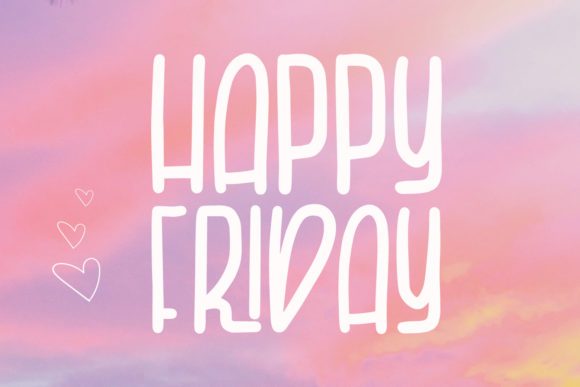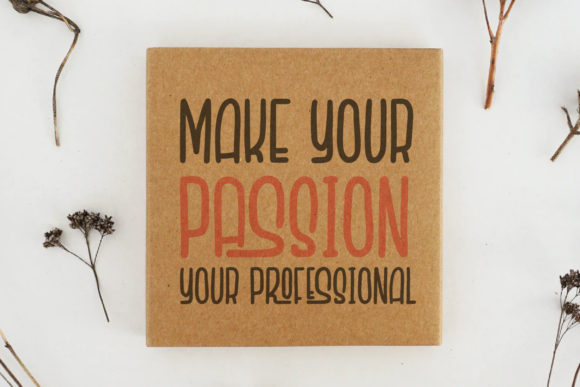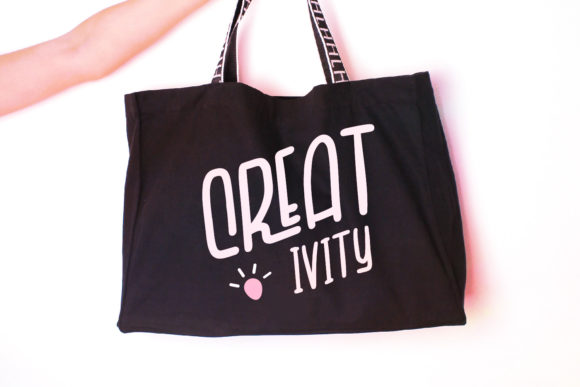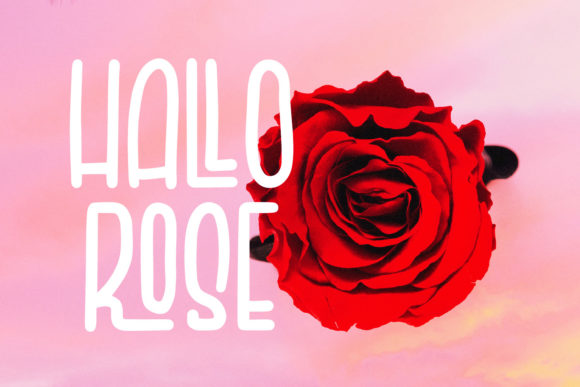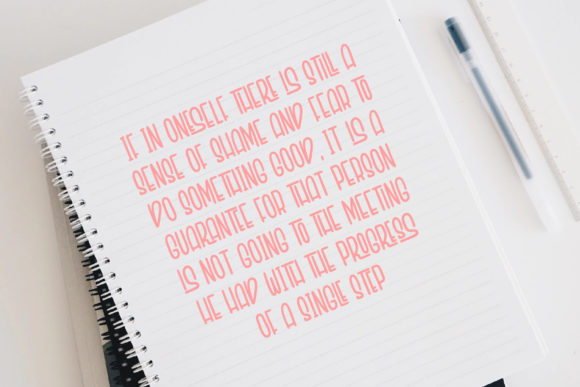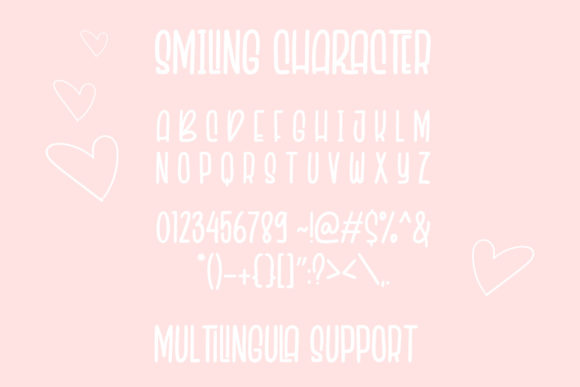
Introduction to Smiling Holiday Font
Have you ever stumbled upon a beautiful chalkboard quote at a coffee shop or a classroom, and immediately felt the urge to create something similar? I’m guessing many designers out there can relate to this moment of inspiration. It’s those little sparks that often lead to a high-quality creative project that showcases our unique style.
For designers seeking a design resource that can bring a personal and realistic feel to their projects, the Smiling Holiday Font is a valuable find. This cute and simple handwritten font is perfect for adding a touch of authenticity to your designs, whether it’s a teaching material or a chalkboard quote. With its PUA encoded features, accessing all the glyphs and swashes is a breeze, making it an ideal choice for designers who want to elevate their work with a free download that’s sure to impress.
Key Features of Smiling Holiday Font
- High-quality design suitable for a creative project, with a playful and festive tone.
- Comes with a transparent background, allowing for easy integration into various design elements.
- Features a clear and legible font size, with a resolution of 300 DPI, ensuring crisp and sharp text.
- Unique characteristics include a smiling face and festive ornaments, making it perfect for holiday-themed designs.
- Includes a range of glyphs and characters, including uppercase and lowercase letters, numbers, and punctuation marks.
Honest Review: Smiling Holiday Font
As a designer, I’m always on the lookout for high-quality fonts to elevate my creative projects. The Smiling Holiday Font caught my attention with its cheerful and playful vibe, making it perfect for winter-themed designs or festive campaigns.
- Unique and creative design that adds a personal touch to any project ✨
- Transparent background allows for seamless integration into various design elements
- ⚠️ Limited font styles and weights may restrict its versatility in complex designs
- ⚠️ Not ideal for serious or formal projects, as it may come across as too playful
Overall, the Smiling Holiday Font is a great addition to any designer’s toolkit. Its high-quality design and transparent background make it easy to integrate into various projects, while its free download option and affordability make it an attractive resource for designers of all levels.
Design Tips and Tricks
To get the most out of the Smiling Holiday Font, use it in high-quality, creative projects that require a unique and festive touch. Consider using the font with a transparent background to add a subtle effect to your design. This font is a valuable design resource that can elevate your projects.
The Smiling Holiday Font is ideal for designing festive holiday cards, gift tags, and invitations. You can also use it to create eye-catching social media graphics and advertisements for holiday promotions. With its playful and cheerful style, this font is perfect for adding a touch of joy to your designs.